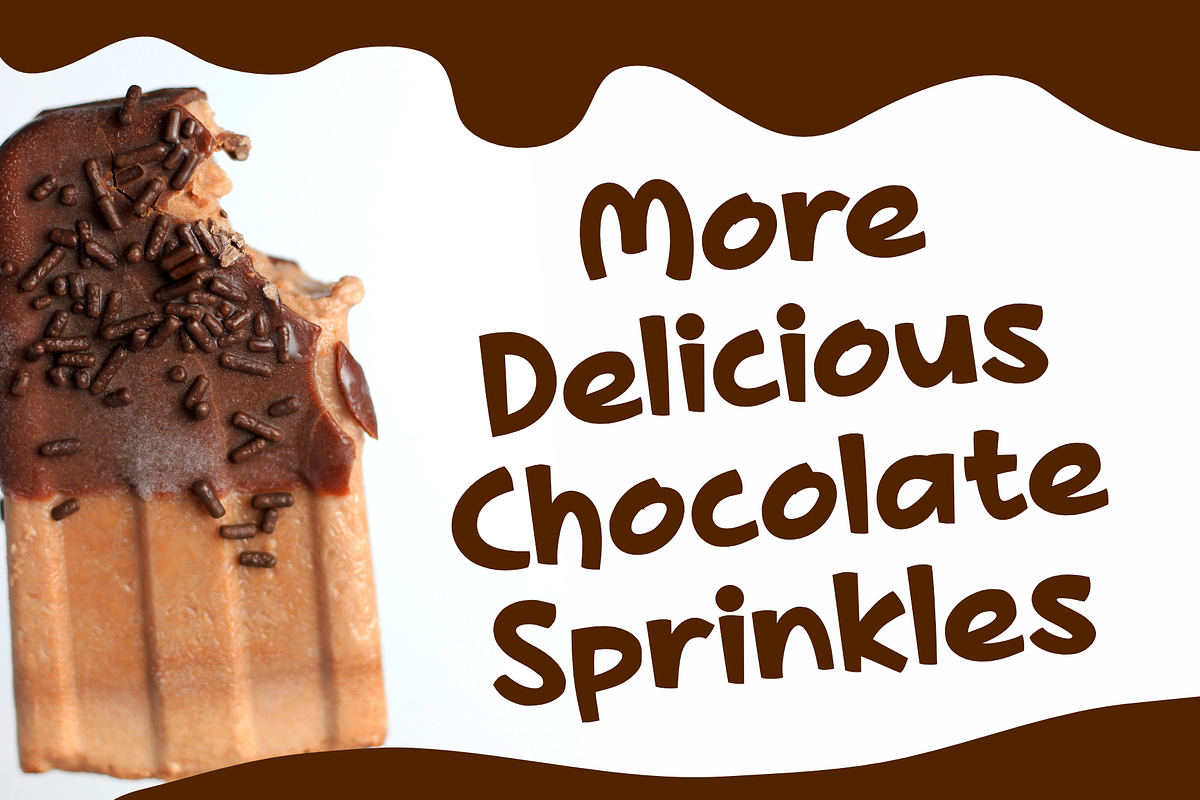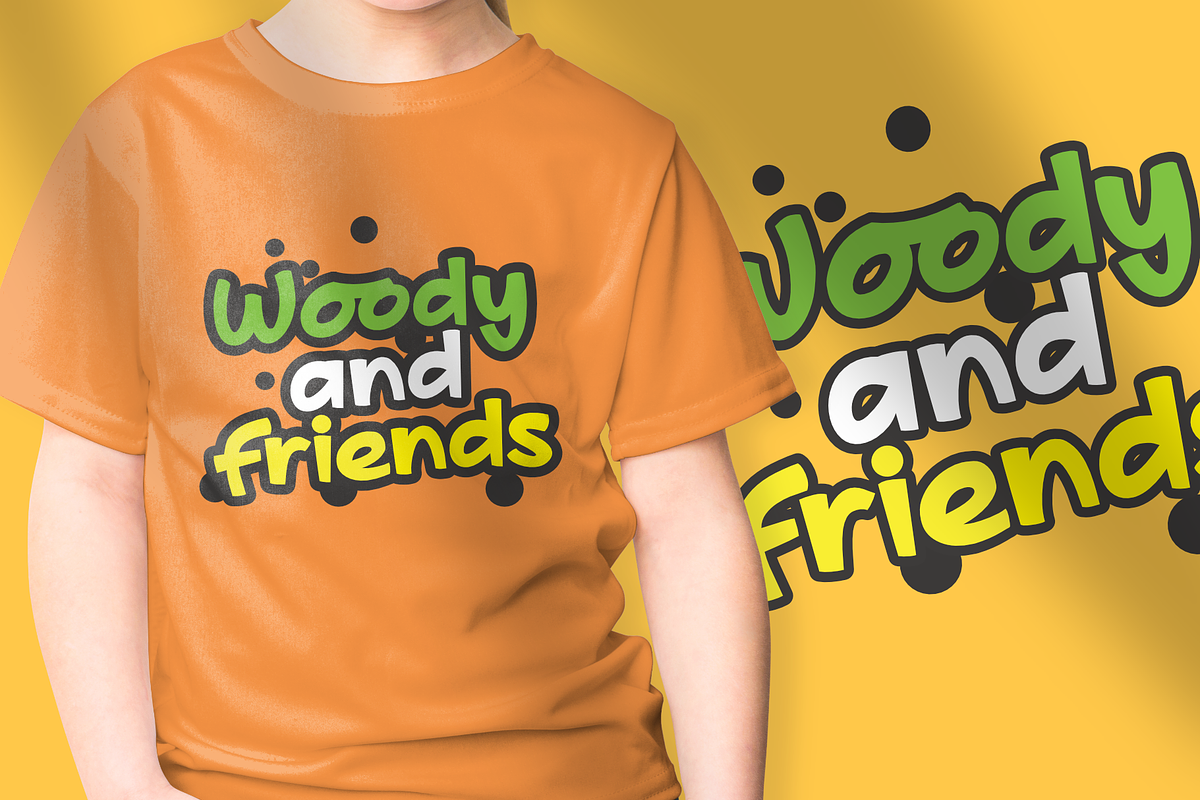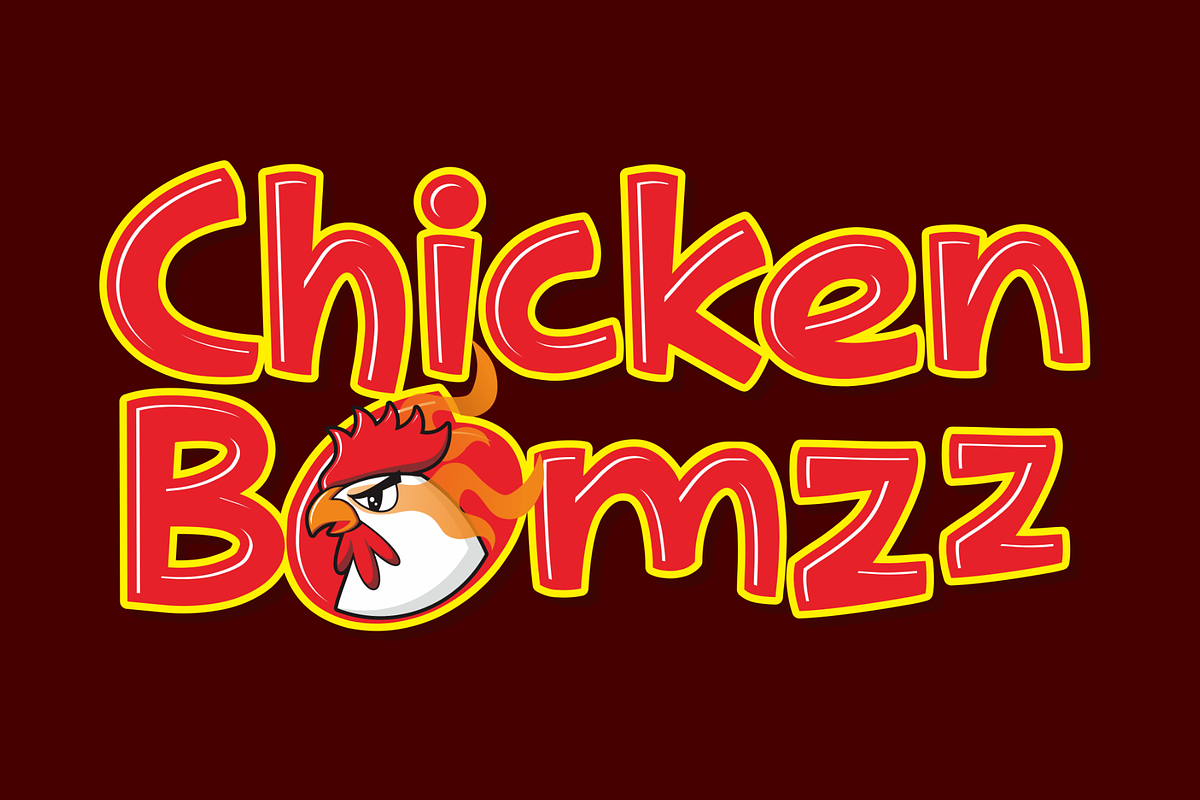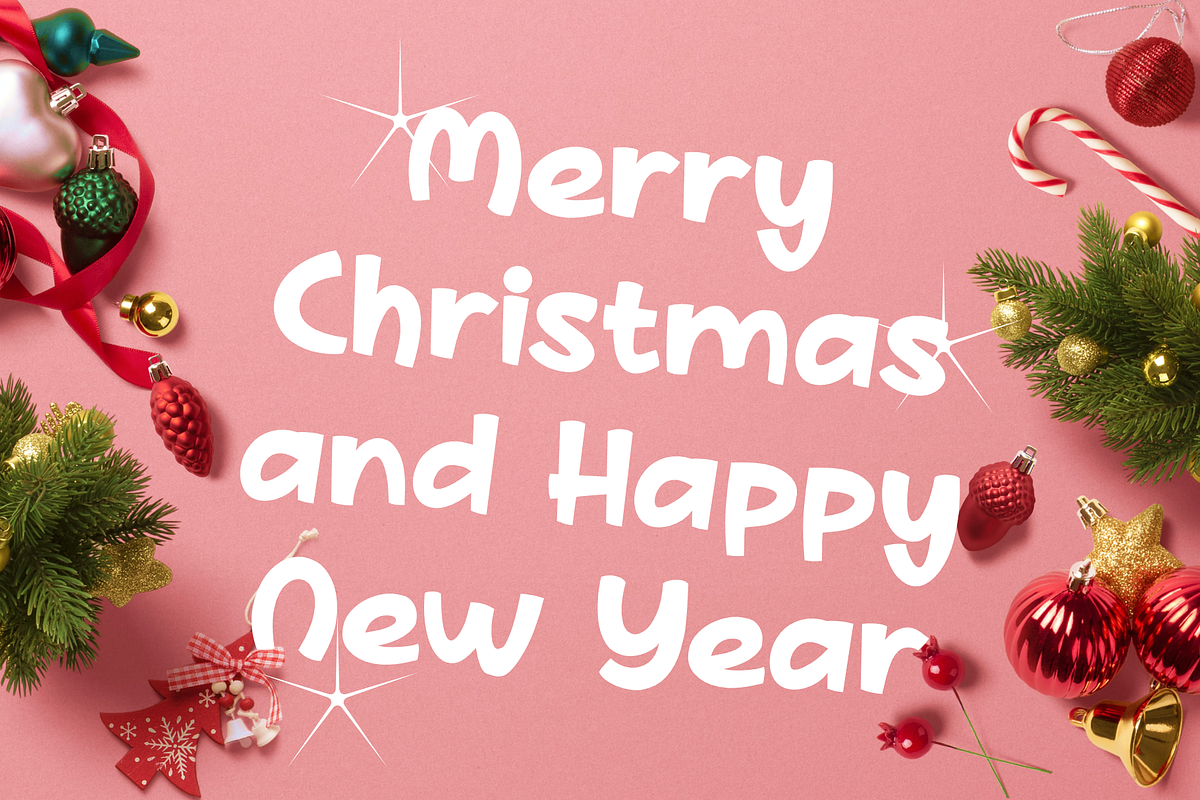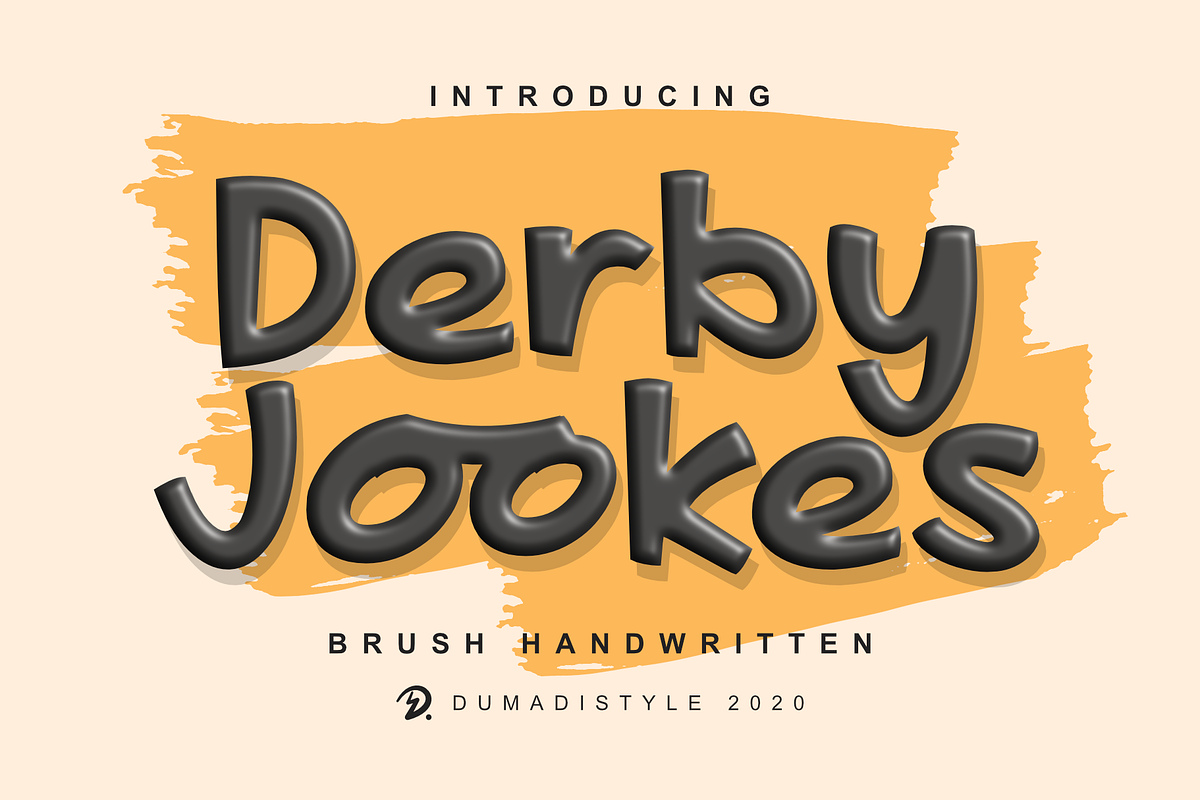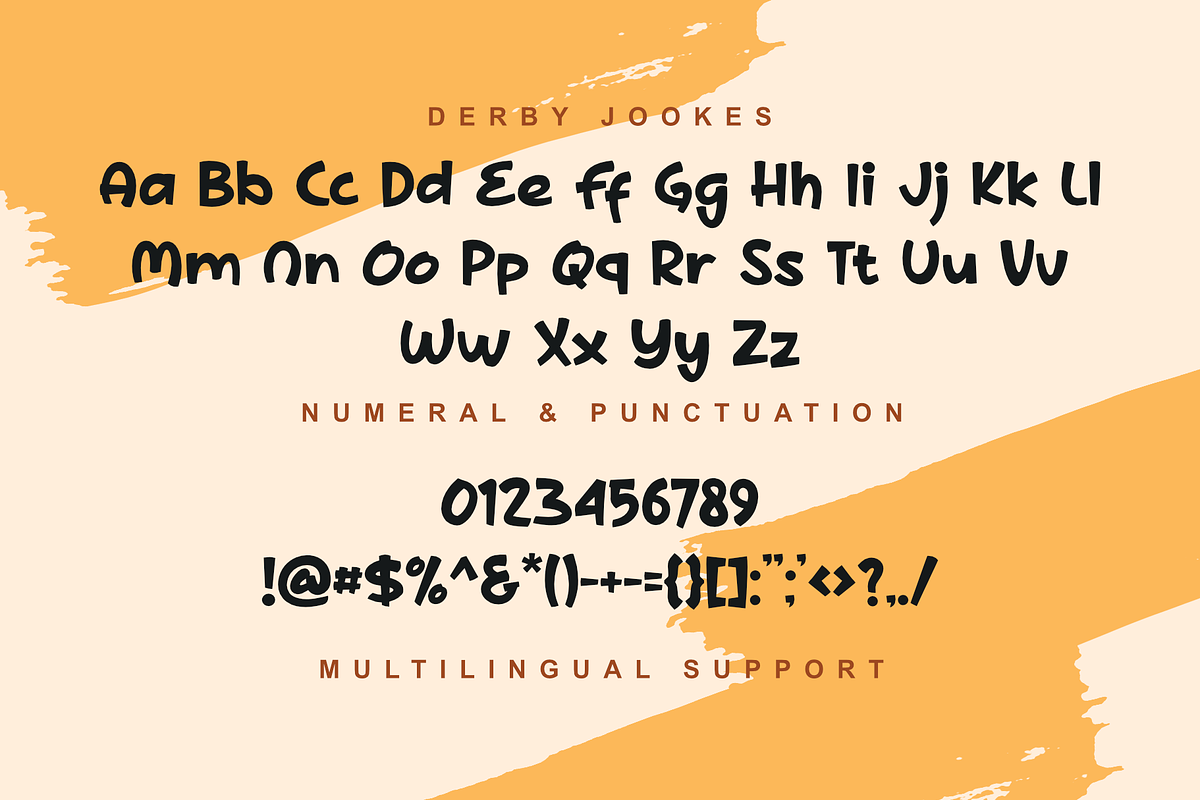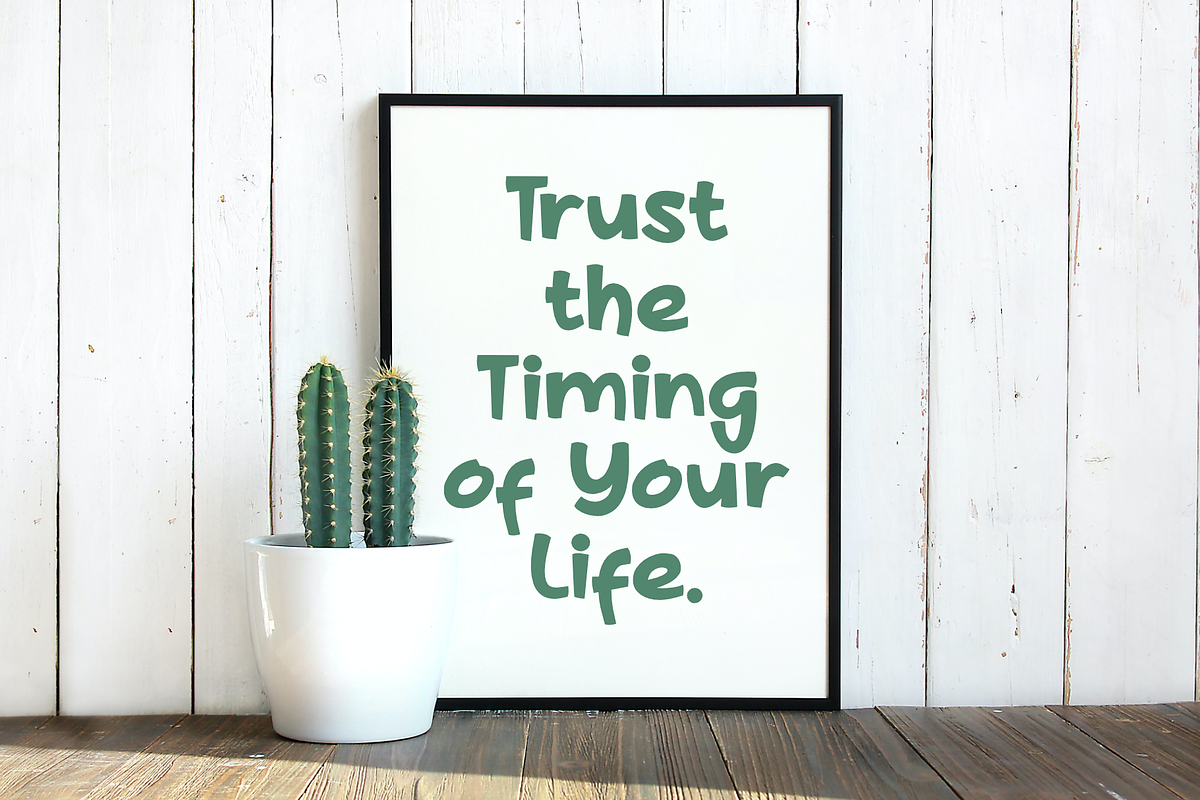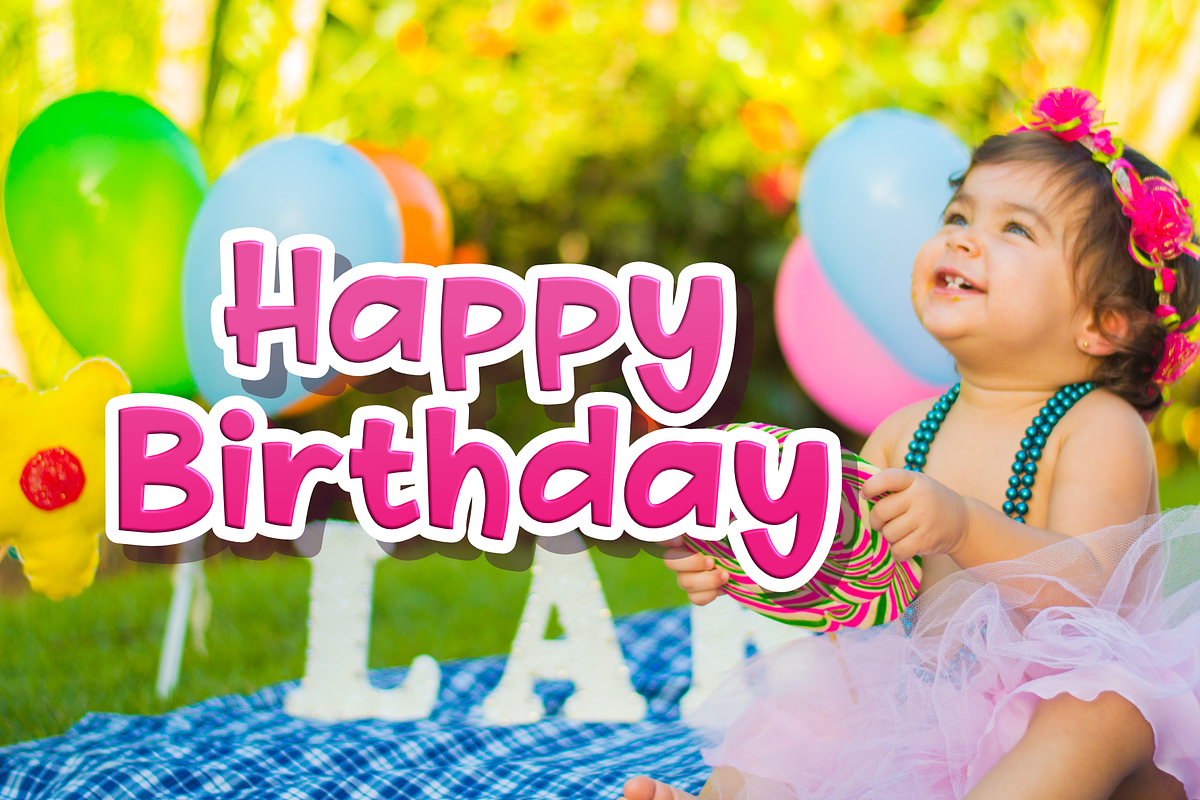
Derby Jookes
Derby Jookes is a cute and adorable freestyle font. It is a cartoon style font great for cute designs, kids right, fun, and extraordinary. Derby Jokes fit into children's celebration designs, logos, t-shirt designs, quotes, and title designs for any event.